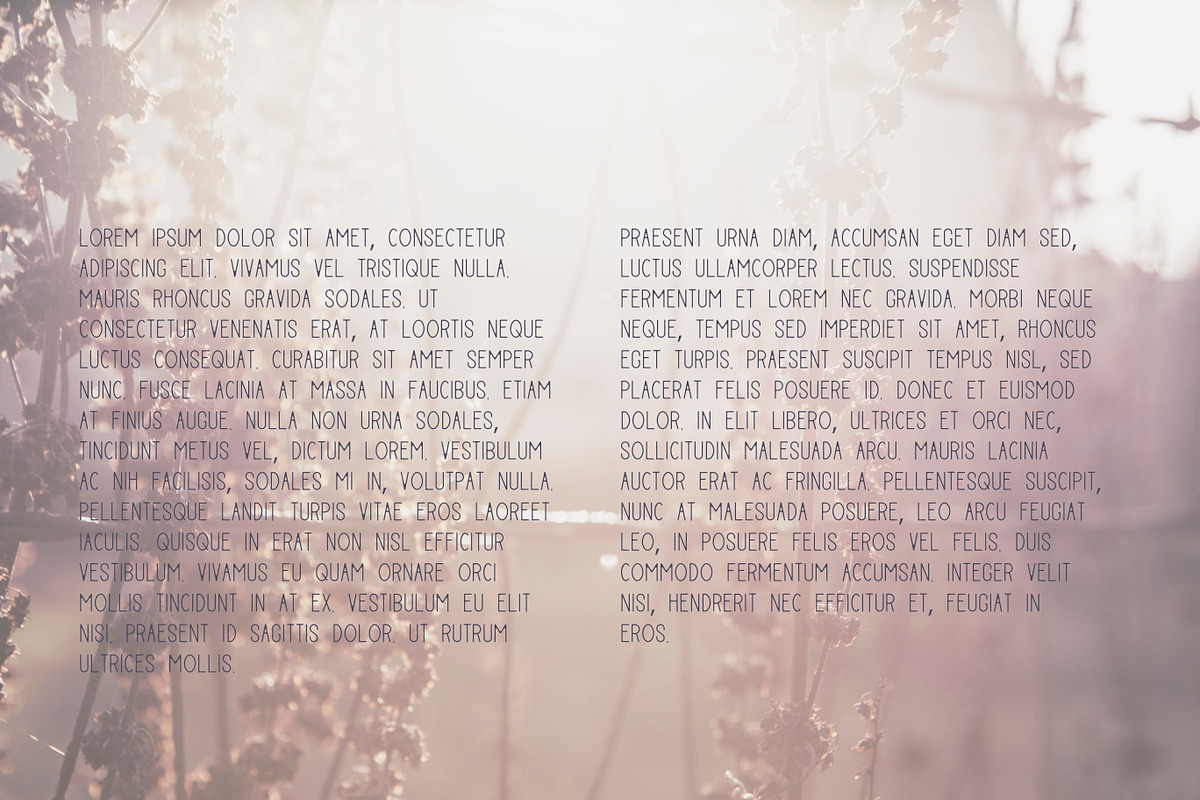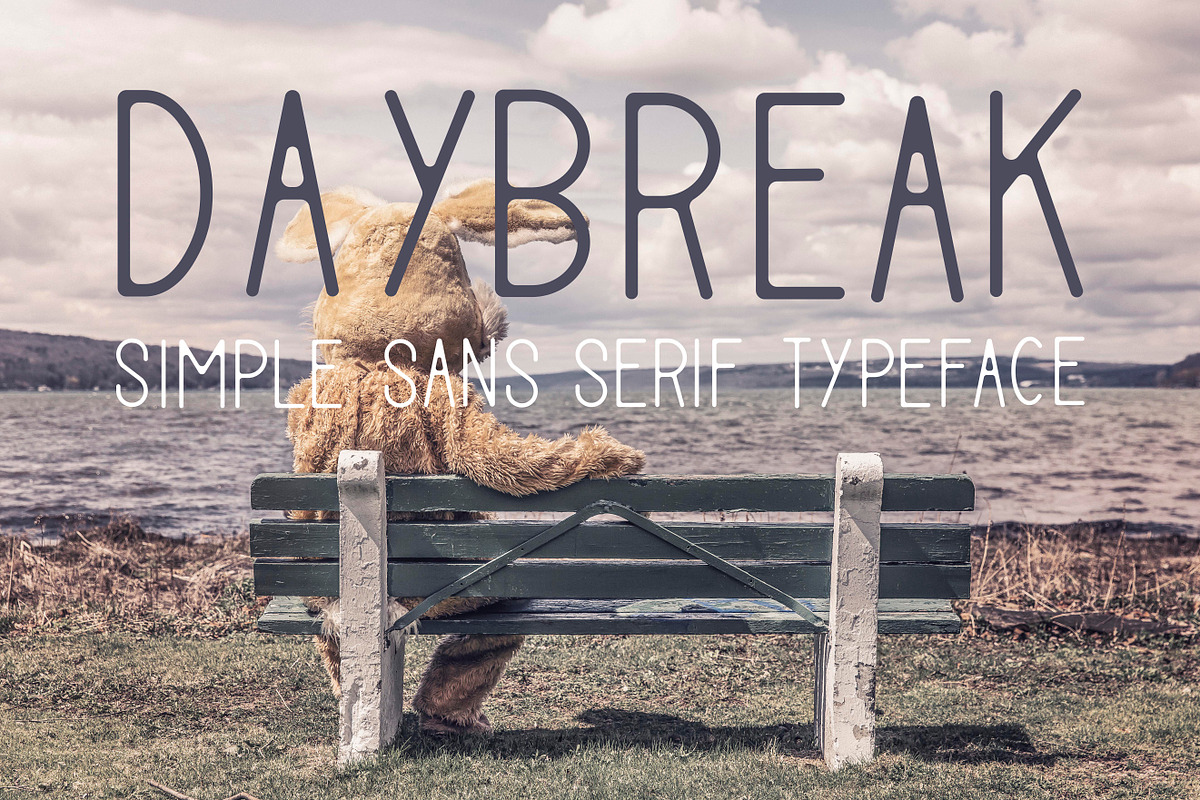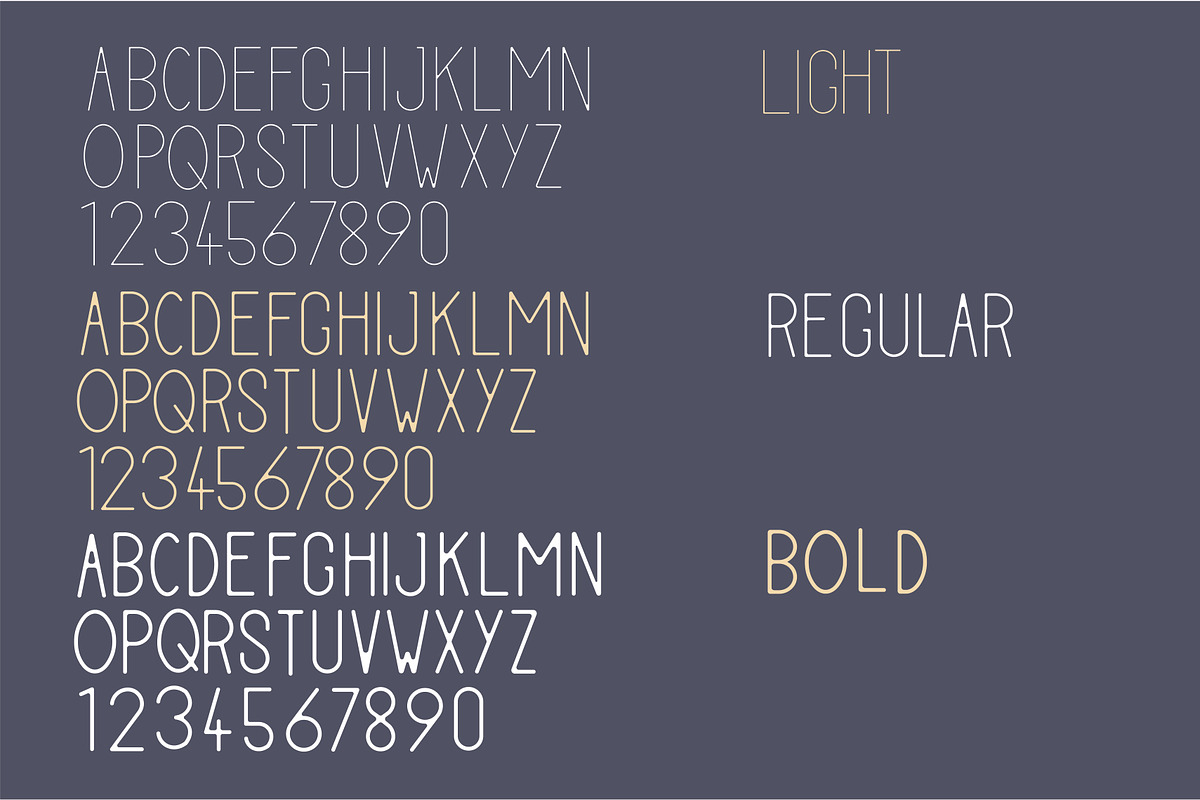
Daybreak Typeface
Daybreak Typeface by MikeHill is a font selected for branding, posters, packaging, typography.
- All caps, numbers and basic punctuation.
Daybreak Typeface by MikeHill fits naturally into Branding, posters, packaging, typography.